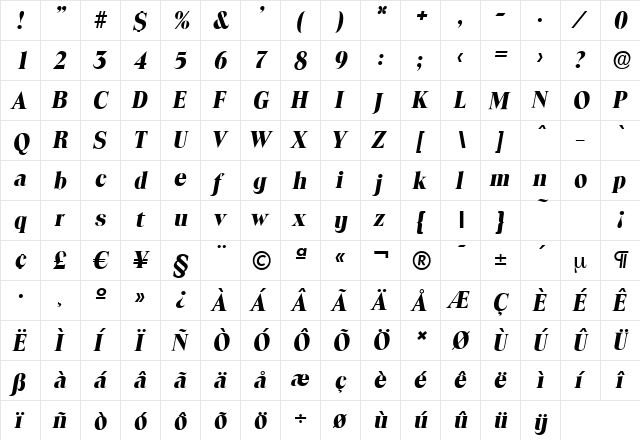
ToledoSerial-Xbold Italic Font Preview
Design Context for ToledoSerial-Xbold Typeface
ToledoSerial-Xbold offers clean, dependable letterforms without strong stylistic allegiance, making it a practical choice for designers who need flexibility. The dynamic lean of this cut emphasises speed and emphasis in any layout. The heavy weight commands attention and anchors typographic hierarchies.
Pro Tip: Use ToledoSerial-Xbold for emphasis, pull quotes, and subheadings where its slanted energy can add rhythm to the layout.